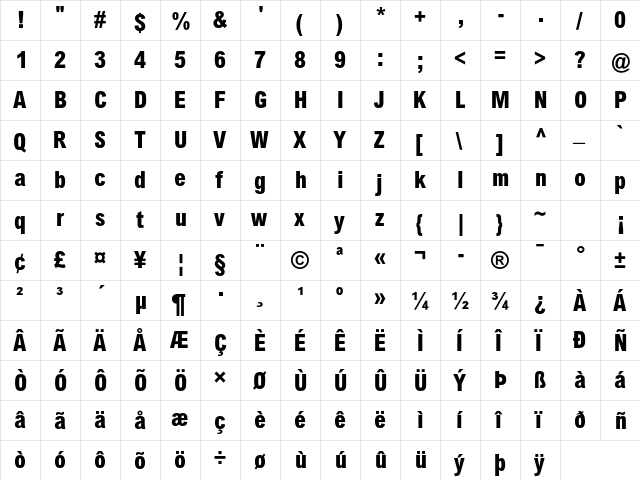
Arial MT Std Extra Bold Cond
Design Context for Arial MT Std Typeface
Arial MT Std offers clean, dependable letterforms without strong stylistic allegiance, making it a practical choice for designers who need flexibility. The heavy weight commands attention and anchors typographic hierarchies. The condensed width makes it efficient for tight spaces without sacrificing legibility.
Pro Tip: Use Arial MT Std in both headline and body roles to test its range before committing to a single application.